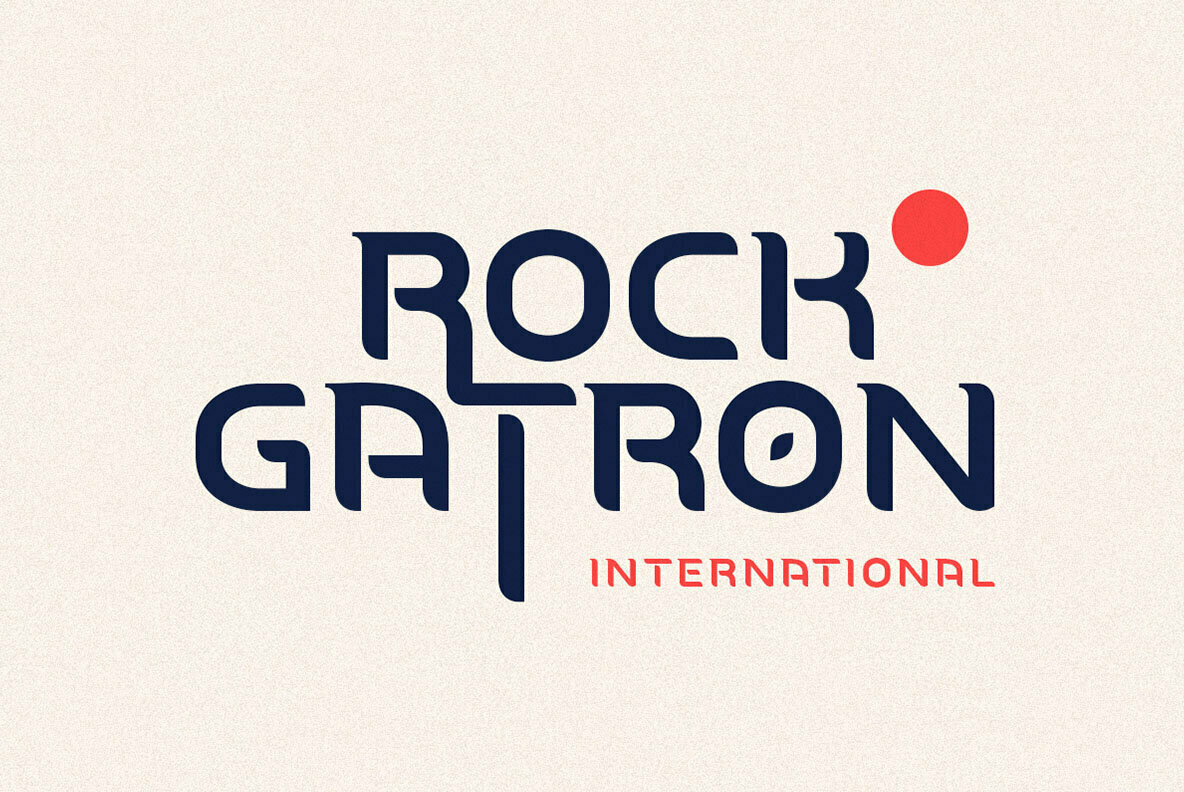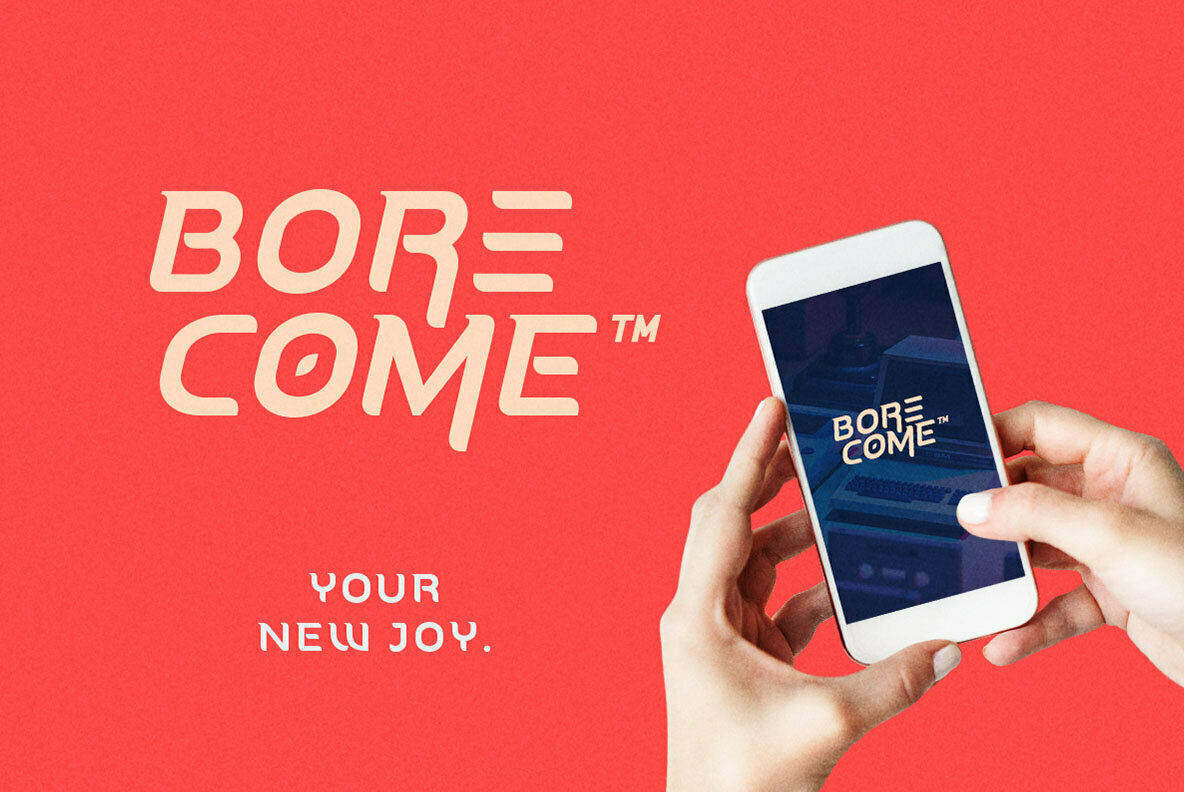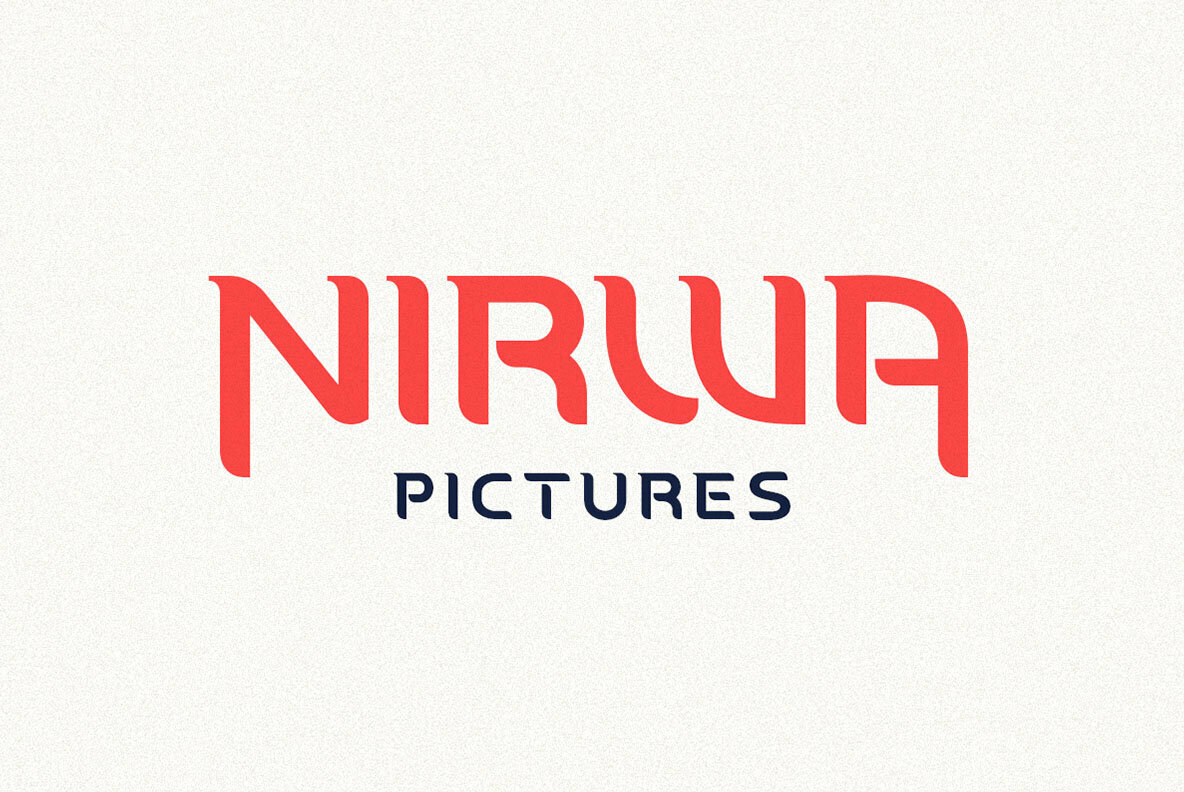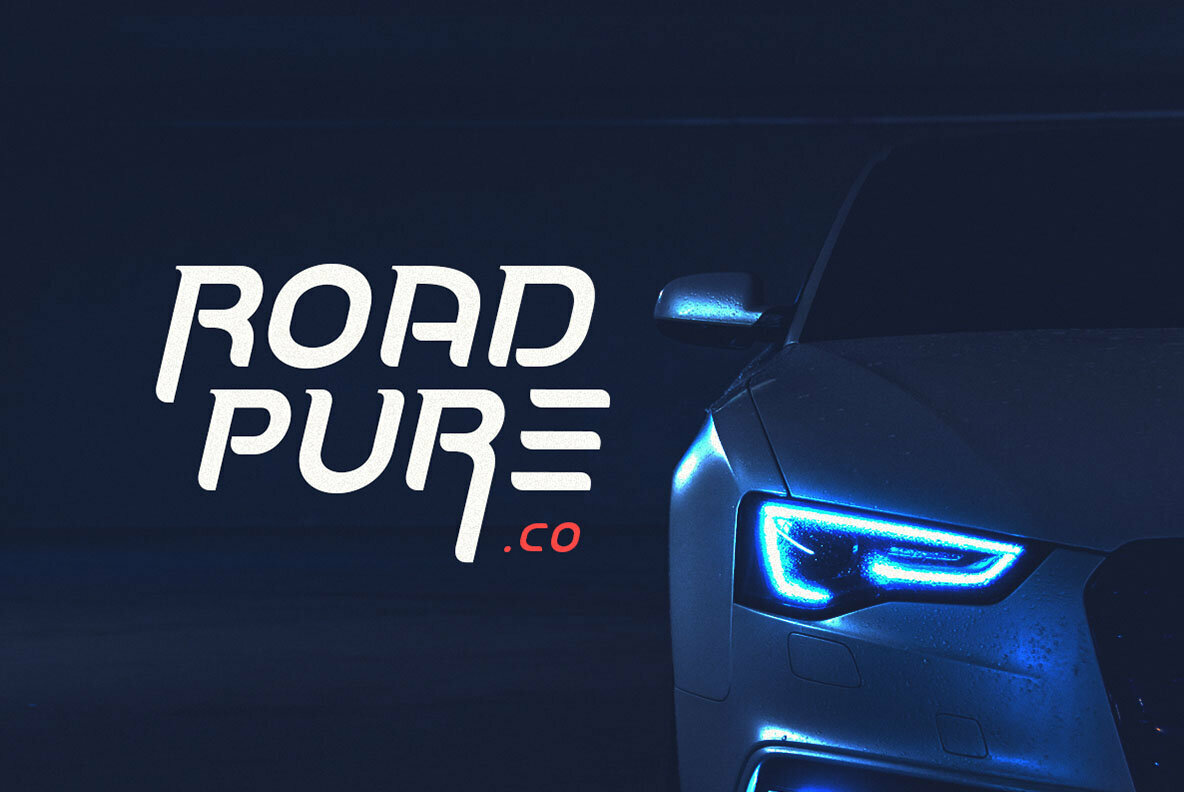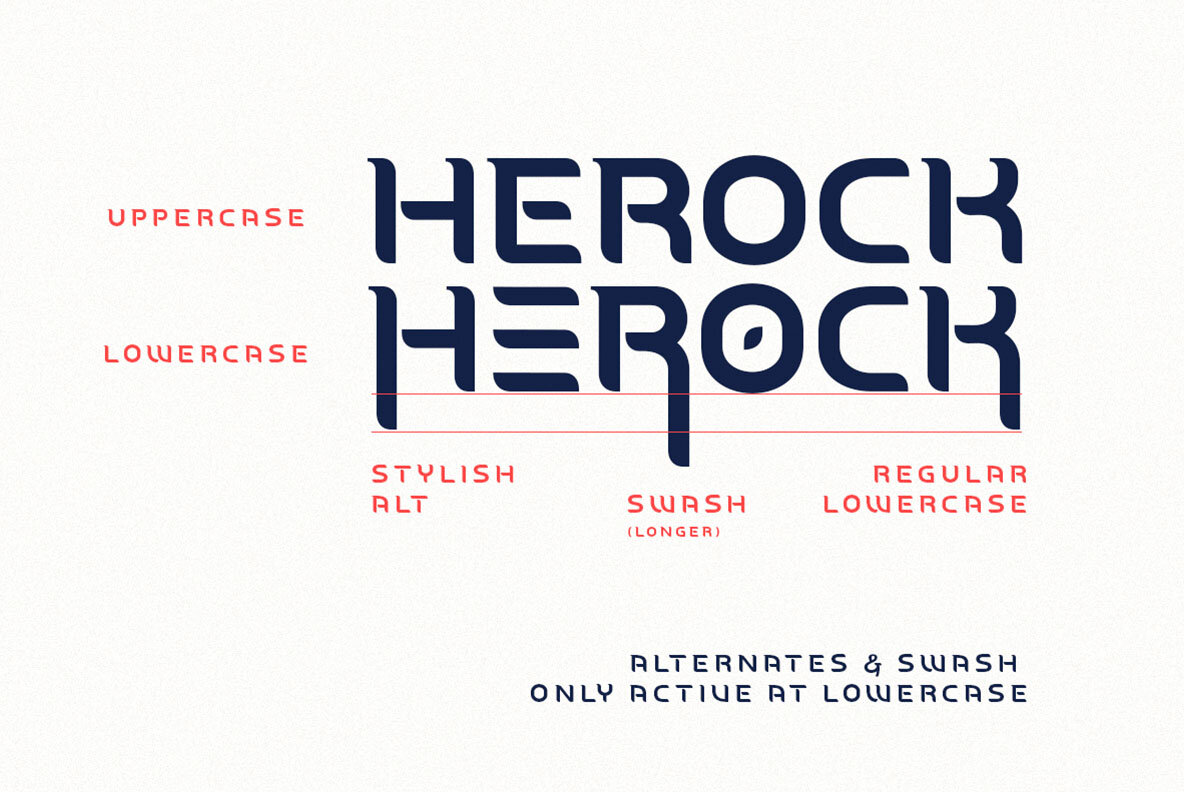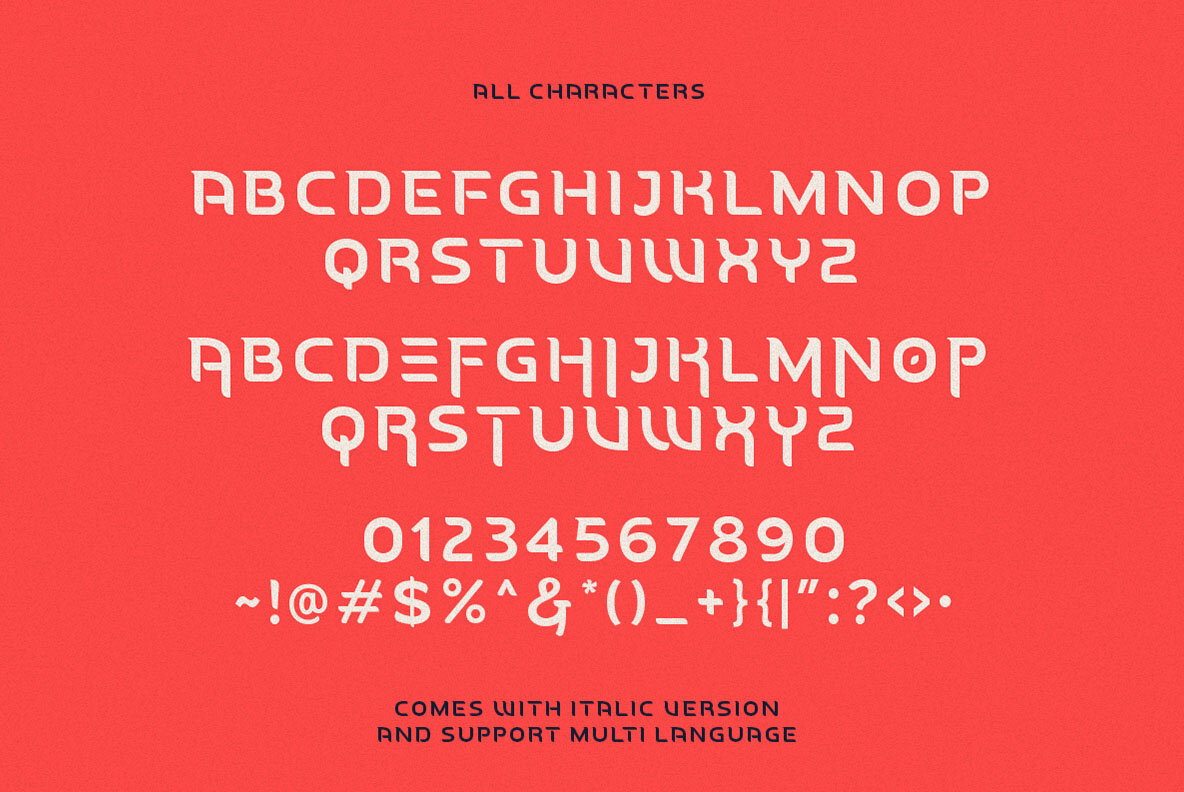
Hardipe Font
Hardipe offers a unique twist on logo design, presenting a font that merges simplicity with style. Its exclusive lowercase characters create a visually stunning appeal, enhancing the elegance of any logo. Ideal for logotypes, Hardipe encourages creativity by allowing users to mix and match uppercase and lowercase letters for maximum impact. Available in both standard and italic versions, Hardipe adapts to different design needs while providing a comprehensive range of numbers, symbols, and multilingual support. This versatility makes it suitable for a variety of branding purposes, adding a distinct touch to your visual identity.Hardipe: A Distinctive Logo Font with Style